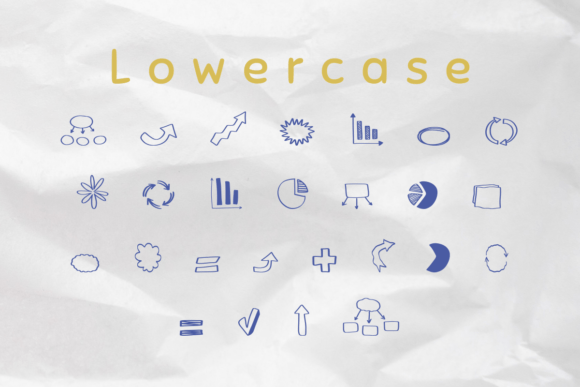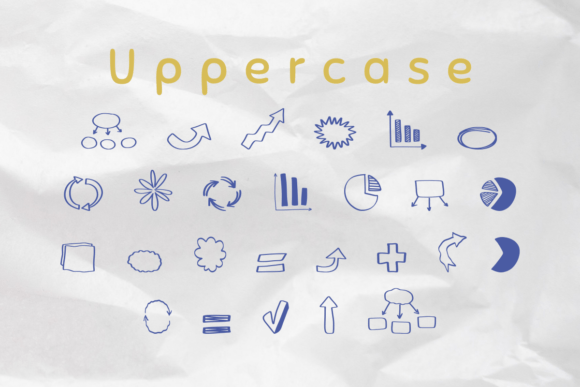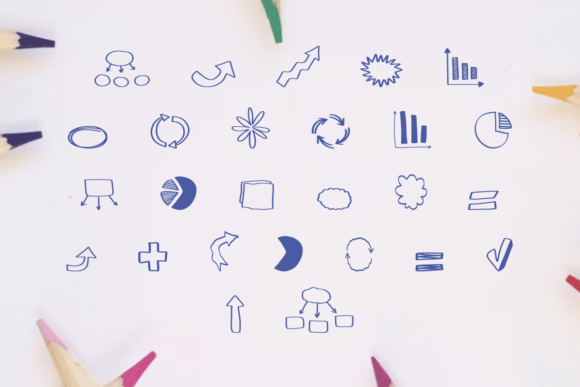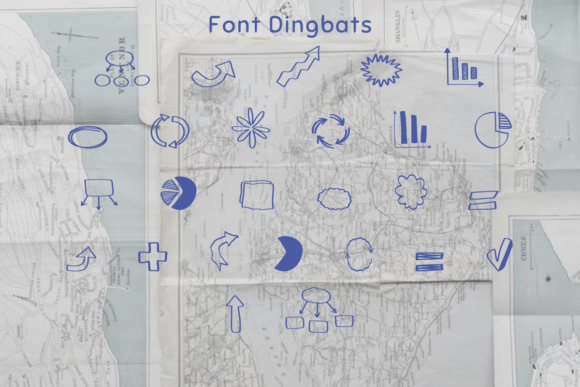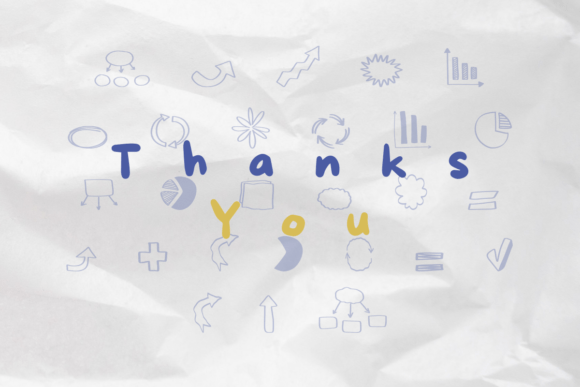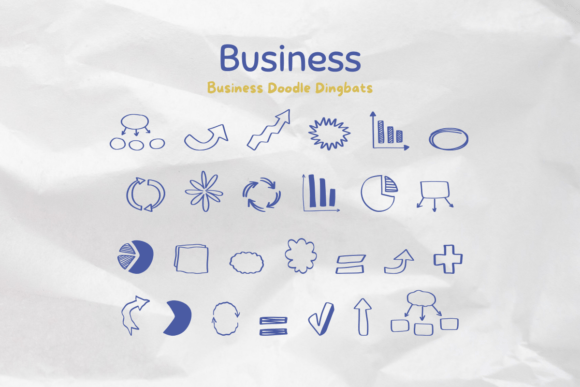
The Ultimate Guide to Business Font: A Dingbat Font for Creative Projects
Are you a designer, crafter, or DIY enthusiast looking for a unique and creative font to elevate your projects? Look no further than Business Font, a dingbat font that contains uppercase and lowercase glyphs. This versatile font is perfect for a variety of applications, including decorative fonts, children’s books, stickers, and book covers.
What is Business Font?
Business Font is a dingbat font that features a collection of uppercase and lowercase glyphs. Dingbat fonts are a type of font that uses symbols, icons, and graphics instead of traditional letters and numbers. Business Font is a carefully crafted dingbat font that is designed to add a touch of creativity and whimsy to your projects.
Key Features of Business Font
- Uppercase and Lowercase Glyphs: Business Font contains both uppercase and lowercase glyphs, making it easy to use for a variety of projects.
- Dingbat Symbols: The font features a range of dingbat symbols, including icons, graphics, and shapes.
- Decorative: Business Font is perfect for decorative fonts, adding a touch of personality and style to your projects.
- Versatile: The font can be used for a variety of applications, including children’s books, stickers, book covers, and more.
Uses for Business Font
Business Font is a versatile font that can be used for a wide range of creative projects. Here are some ideas to get you started:
- Children’s Books: Add a touch of whimsy and fun to your children’s books with Business Font.
- Stickers: Use Business Font to create custom stickers for kids, parties, or special events.
- Book Covers: Add a decorative touch to your book covers with Business Font.
- Decorative Fonts: Use Business Font to create decorative fonts for your projects, adding a touch of personality and style.
- Crafting: Business Font is perfect for crafters, adding a creative touch to DIY projects, such as scrapbooking, card making, and more.
Tips for Using Business Font
Here are some tips for getting the most out of Business Font:
- Experiment with Sizes: Play around with different font sizes to create visual interest and hierarchy.
- Mix and Match: Combine Business Font with other fonts to create a unique and creative look.
- Use for Headlines: Use Business Font for headlines and titles to add a touch of personality and style.
- Color: Experiment with different colors to add an extra layer of creativity to your projects.
| Font Name | Business Font |
| Author | Sakti Avellin |
Business Font is a versatile and creative dingbat font that is perfect for designers, crafters, and DIY enthusiasts. With its uppercase and lowercase glyphs, decorative symbols, and wide range of uses, Business Font is a must-have font for any creative project. Whether you’re working on a children’s book, sticker, book cover, or decorative font, Business Font is sure to add a touch of personality and style.